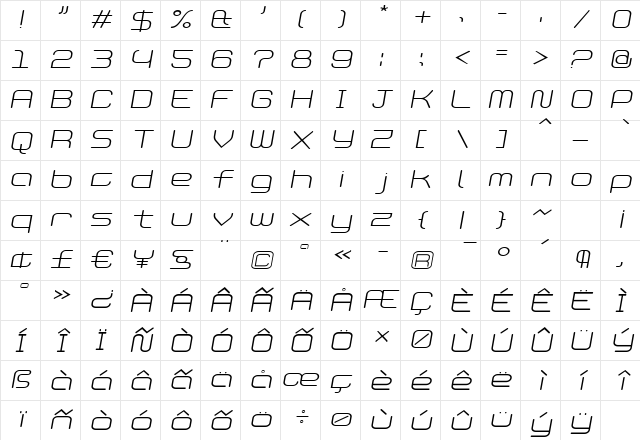
PhantomLight Italic Regular Free Font
PhantomLight Italic Regular
Design Context for PhantomLight Italic
PhantomLight Italic is a composed and adaptable typeface that performs quietly and consistently across a wide range of design contexts. The slanted form adds forward momentum and visual energy. Its slender proportions lend an understated elegance to any composition.
Pro Tip: Use PhantomLight Italic for emphasis, pull quotes, and subheadings where its slanted energy can add rhythm to the layout.